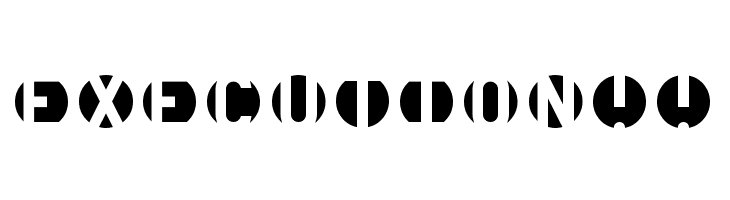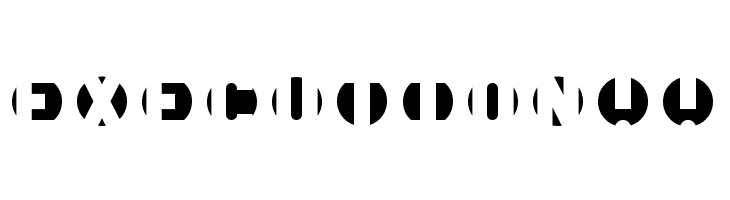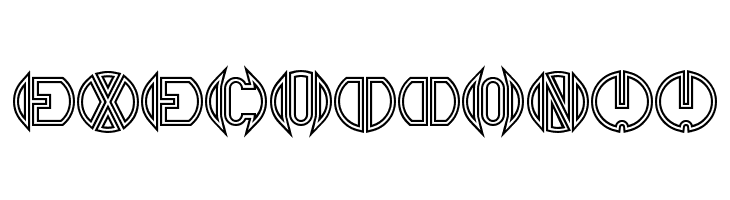
Modraniht Runic Font
- Font: Modraniht Runic
A geometric, abstract font with circular motifs and bold strokes.
A geometric and abstract font with bold, circular shapes and strategic negative space.
A geometric, abstract font with bold, circular outlines and symmetrical design.